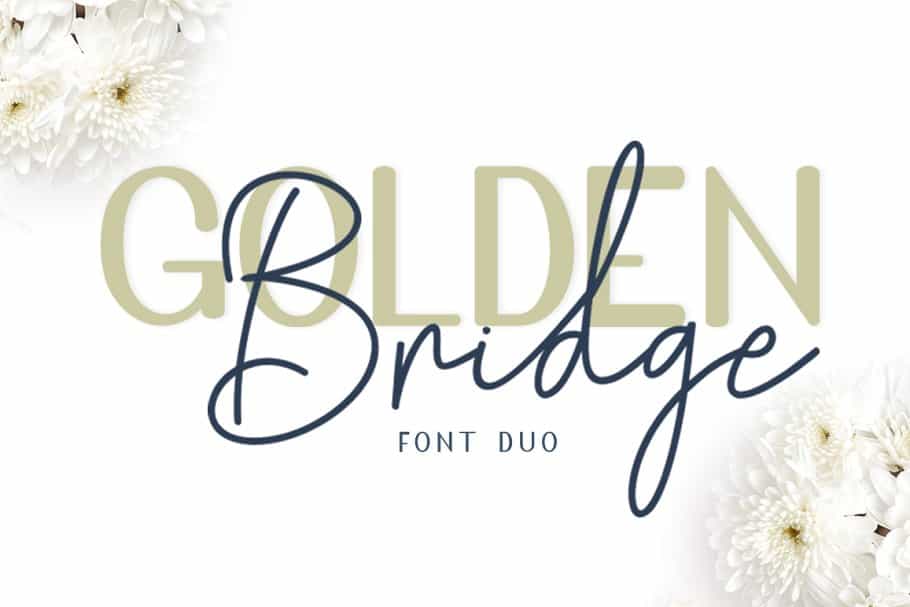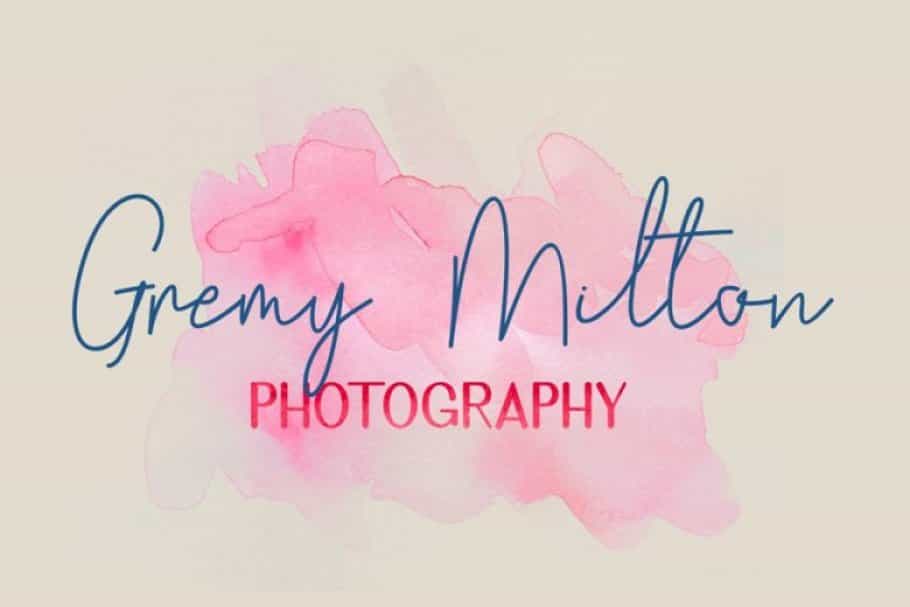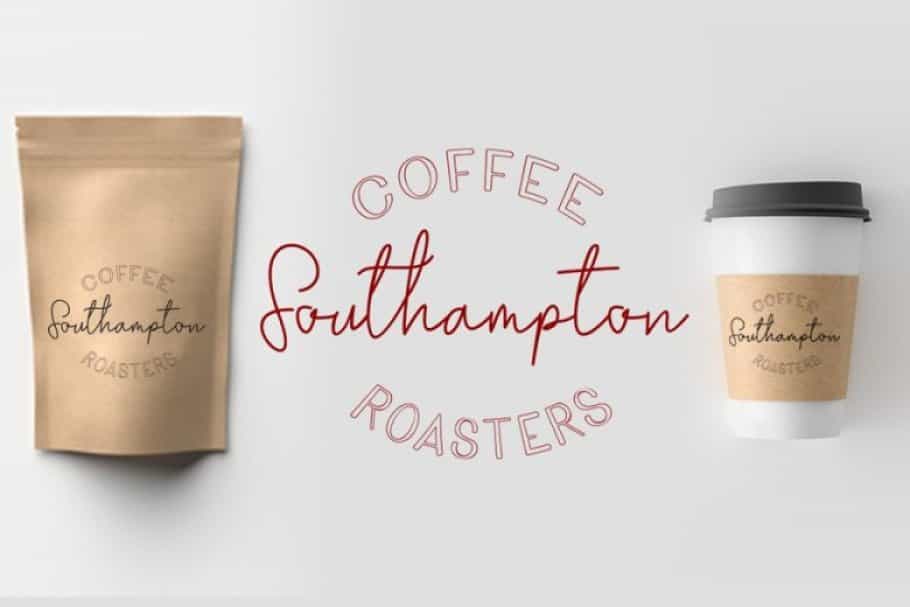
Discover Golden Bridge Font Duo, part of the Sans Serif Handwritten collection—a versatile and unique font perfect for adding a personal touch to your projects. Download it for free and enjoy crafting designs with style, from invitations to social media posts. This font is available exclusively for personal use, giving you the freedom to create without limits. Unlock your creativity with Golden Bridge Font Duo today!
Hi Font Lovers! The Golden Bridge set consists of the signature script and sans that have 3 styles. The Font Duo is perfect to give a modern touch to your project. Perfect for logos, handwriting, product packaging, headers, posters, merchandise. social media and greeting cards.